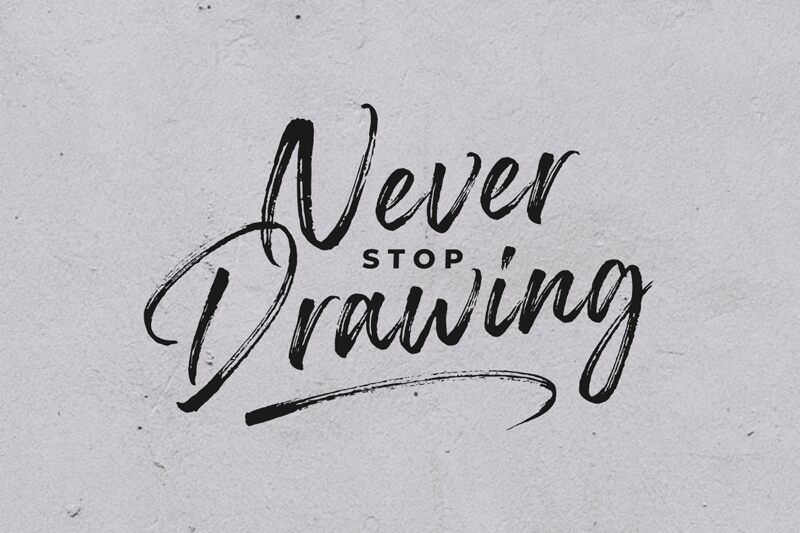
Stunders Swash - Personal Use
Stunders Swash is a cool brush swash font designed by Ghuroba Studio.
This font belongs into the Stunders font family.
Ghuroba Studio